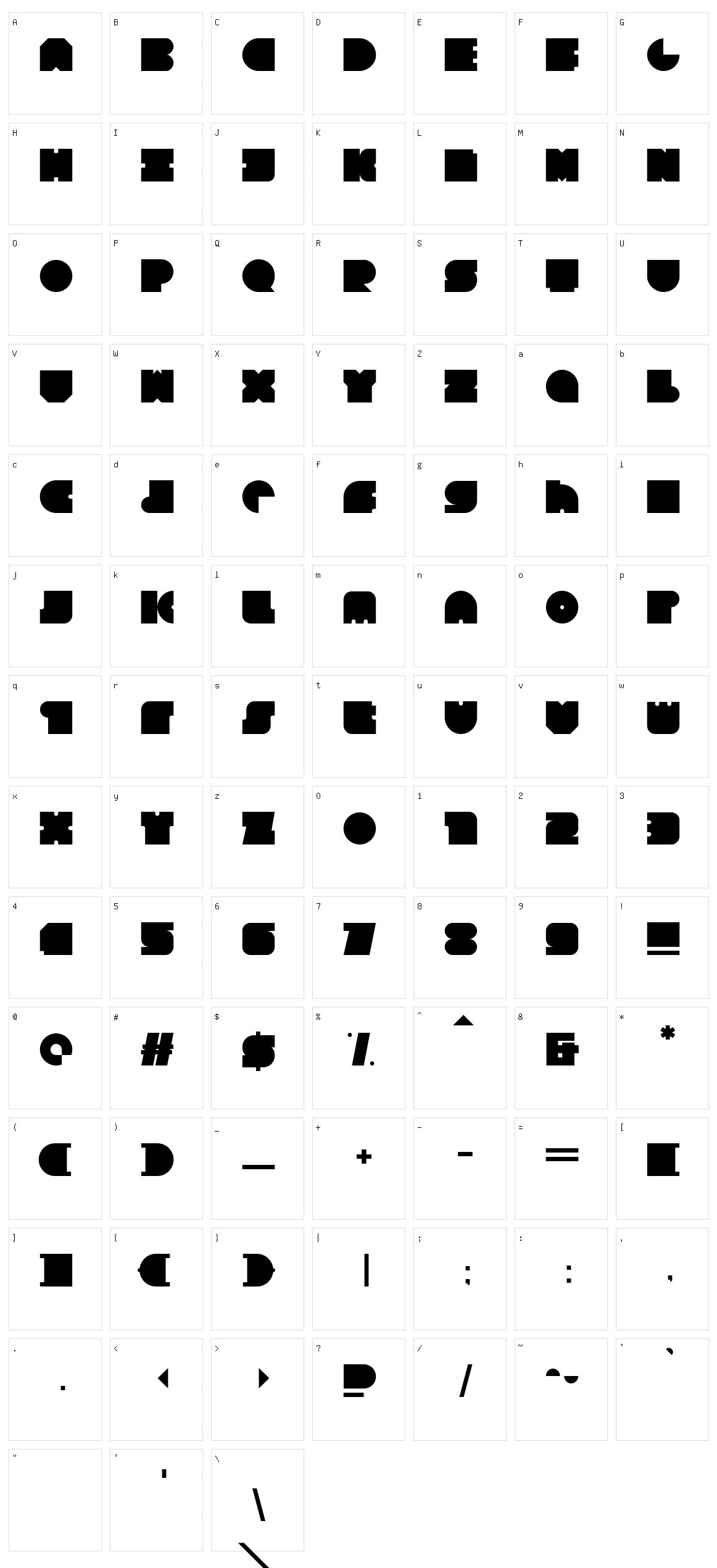
The free font Square 80 is carefully designed by Zetafonts, showcasing a thoughtful balance of creativity and usability and falls under the Groovy font style. When you download the ZIP file, it contains only 16.94 KB of font files, making it lightweight and quick to download. Please review the license details below to understand permitted usage and distribution rights. If license information is not available, we recommend using this font for personal projects only or contacting the author directly for commercial usage permissions.